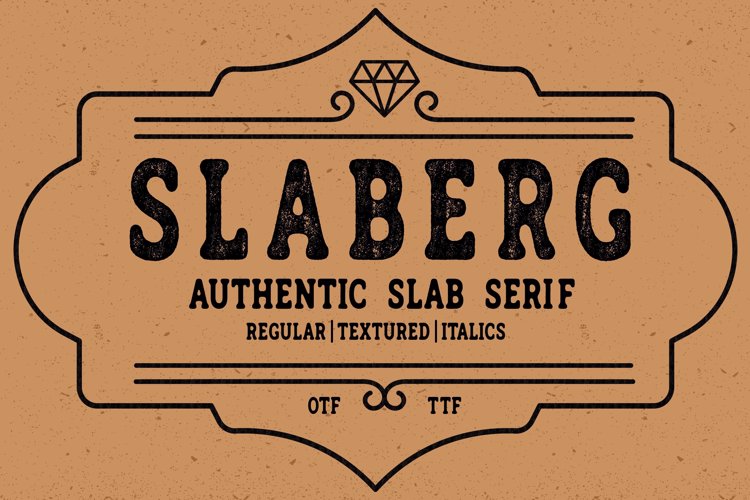
SLABERG Font
Regular Textured Style
🎨 Font Name: SLABERG by Minimalist Art Studio
🎨 Font Description: SLABERG is a bold letterpress-inspired slab serif with vintage charm and premium detailing—ideal for packaging, signage, and classic branding.